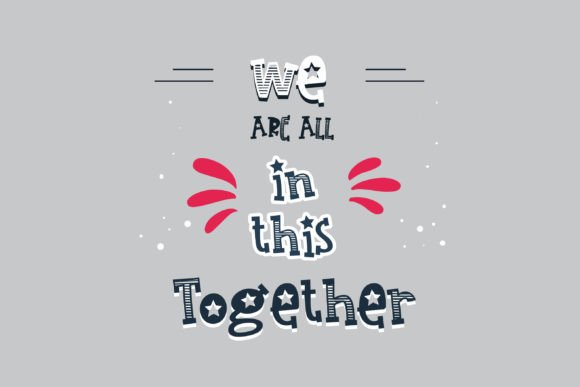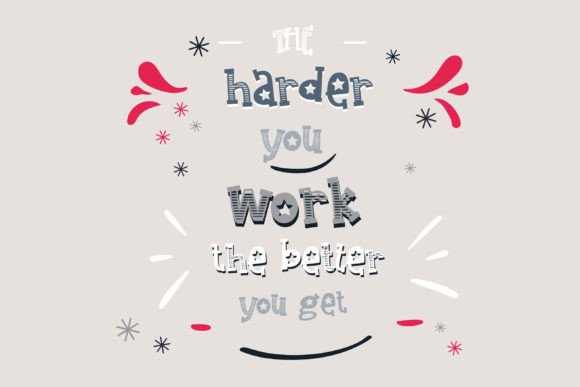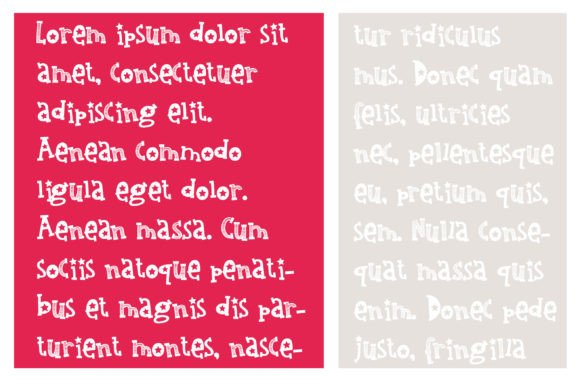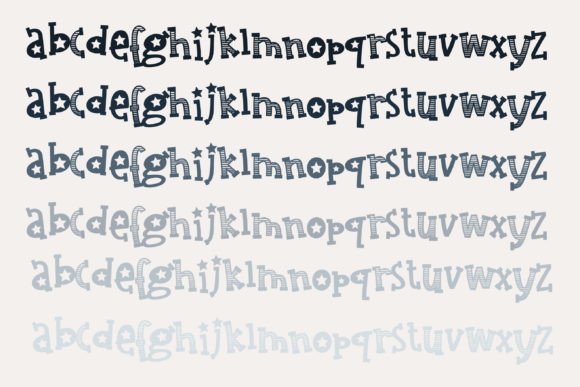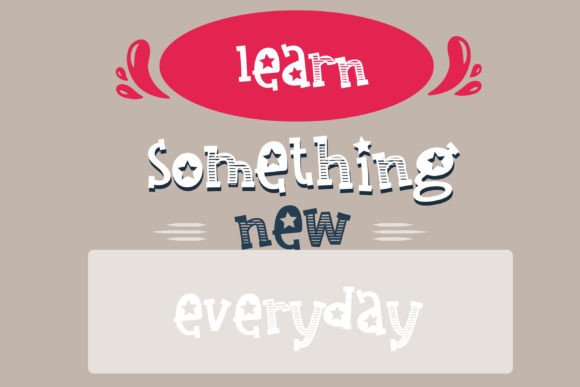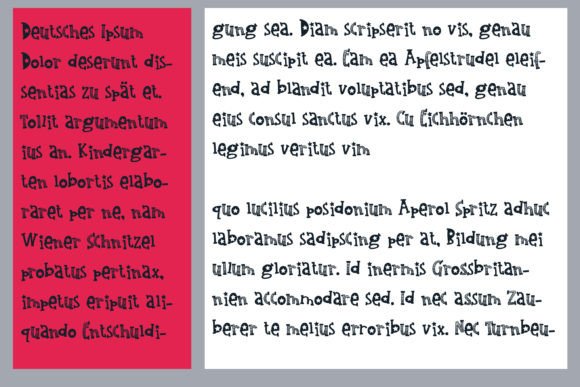
Introducing Do Right Stars and Stripes Font: A Whimsical Patriotic Typeface
Are you looking for a font that exudes a sense of patriotism and whimsy? Look no further than the Do Right Stars and Stripes Font. This hand-crafted serif font features stars and stripes throughout, making it perfect for designers and crafters who want to add a touch of American charm to their projects.
A hand-crafted font, also known as a handwritten font, is a typeface that is designed to look like it was written by hand. This type of font is often used for invitations, greeting cards, and other items where a personal touch is desired. Handwritten fonts can be either formal or informal, and they can be used for a variety of purposes, from digital designs to print materials.
Characteristics of Hand-Crafted Fonts
Hand-crafted fonts like Do Right Stars and Stripes Font have a unique, organic feel that sets them apart from other typefaces. Some common characteristics of hand-crafted fonts include:
- Irregular letterforms and spacing
- Unique flourishes and swashes
- A sense of movement and fluidity
- Often feature subtle imperfections and quirks
Uses for Do Right Stars and Stripes Font
The Do Right Stars and Stripes Font is a versatile typeface that can be used for a variety of projects, including:
- Patriotic designs, such as Fourth of July or Memorial Day themed projects
- Invitations and greeting cards for special occasions
- Branding and packaging for businesses with a patriotic or American theme
- Digital designs, such as social media graphics and blog posts
- Print materials, such as flyers, brochures, and posters
Benefits of Using Hand-Crafted Fonts
Using a hand-crafted font like Do Right Stars and Stripes Font can add a unique touch to your designs and help you stand out from the crowd. Some benefits of using hand-crafted fonts include:
- Adds a personal touch to your designs
- Can help to create a sense of nostalgia or Americana
- Can be used to add a touch of whimsy or playfulness to your designs
- Can help to differentiate your brand or designs from others
Tips for Using Do Right Stars and Stripes Font
Here are a few tips for using the Do Right Stars and Stripes Font in your designs:
- Use it sparingly: Because of its unique and eye-catching design, it’s best to use this font sparingly to avoid overwhelming the viewer.
- Pair it with other fonts: Consider pairing Do Right Stars and Stripes Font with other fonts to create a unique and interesting contrast.
- Experiment with colors: The stars and stripes design of this font lends itself well to bold, patriotic colors like red, white, and blue.
The Do Right Stars and Stripes Font is a unique and versatile typeface that is perfect for designers and crafters who want to add a touch of patriotism and whimsy to their projects. With its hand-crafted, serif design and stars and stripes motif, this font is sure to stand out and add a personal touch to your designs. Whether you’re creating invitations, branding materials, or digital designs, Do Right Stars and Stripes Font is a great choice.